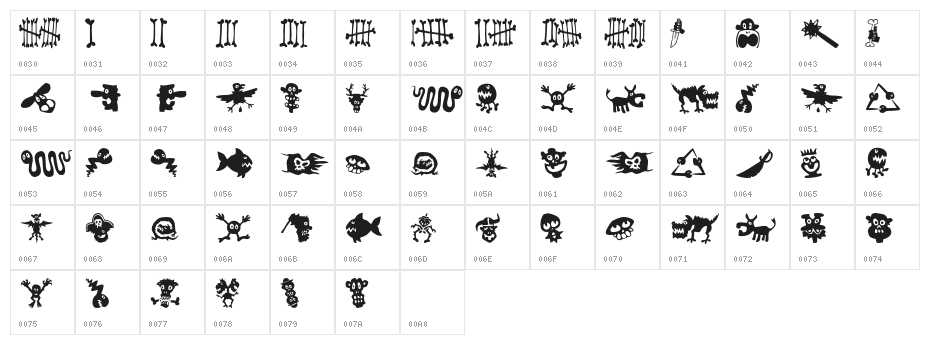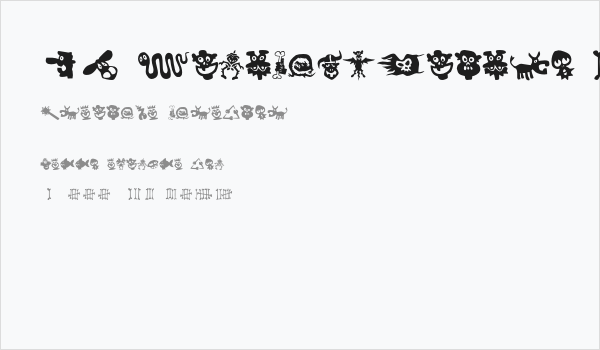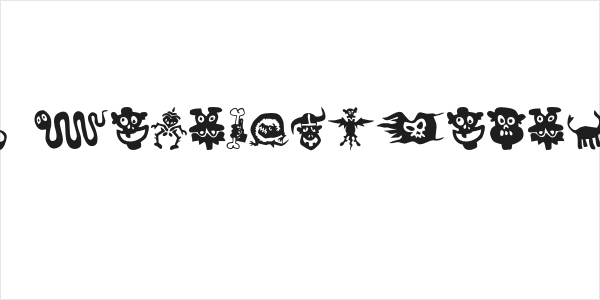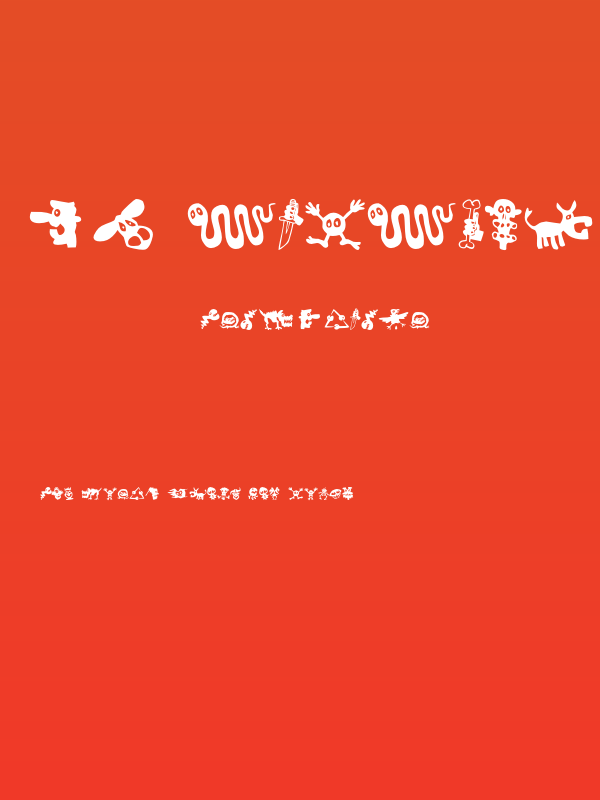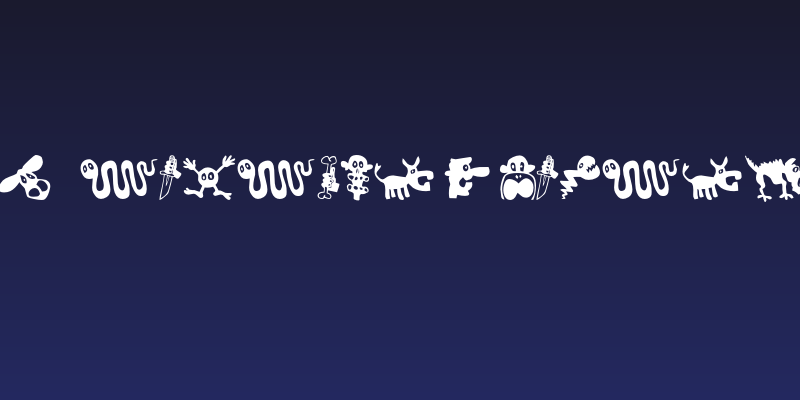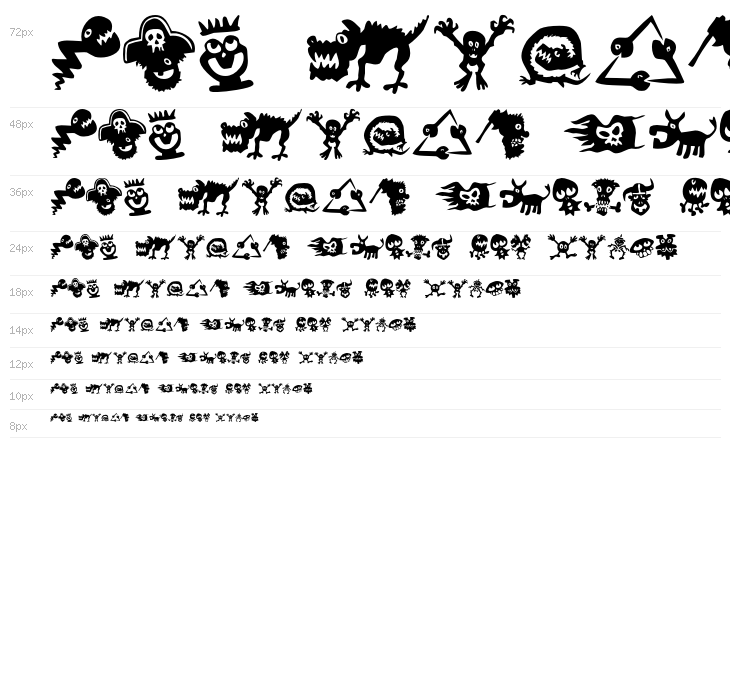
FE-SamsDingbatsNo.1 Font
FE-SamsDingbatsNo.1 Description
This collection of dingbats features a variety of whimsical and quirky illustrations, each with a playful and slightly macabre theme. The characters include a mix of creatures, symbols, and abstract shapes, all rendered in bold, black silhouettes. The designs are highly detailed, with an emphasis on exaggerated features and imaginative forms. The overall style is reminiscent of cartoonish horror, with elements that are both humorous and eerie. These dingbats are perfect for adding a unique and eye-catching element to creative projects, offering a distinctive visual flair that stands out.
| Use Case | Logos, Posters, Creative Projects |
| Proposed Projects | Ideal for Halloween-themed designs, children's books, playful posters, and creative branding projects. |